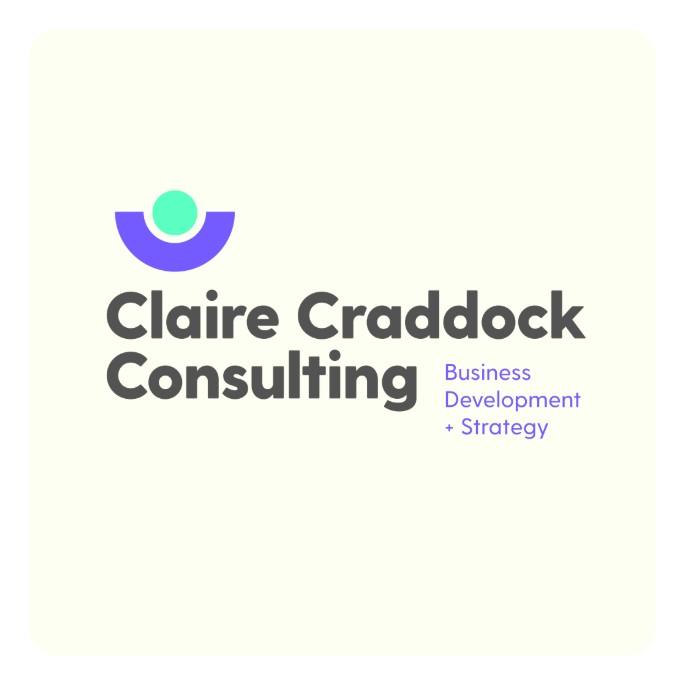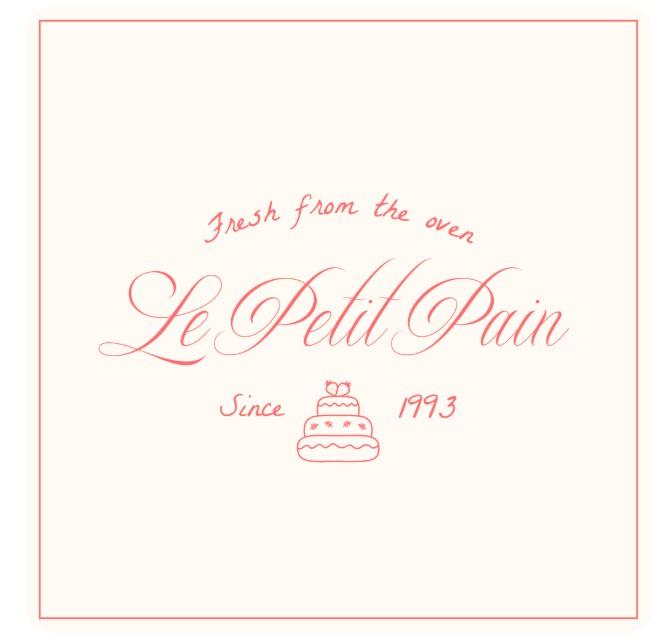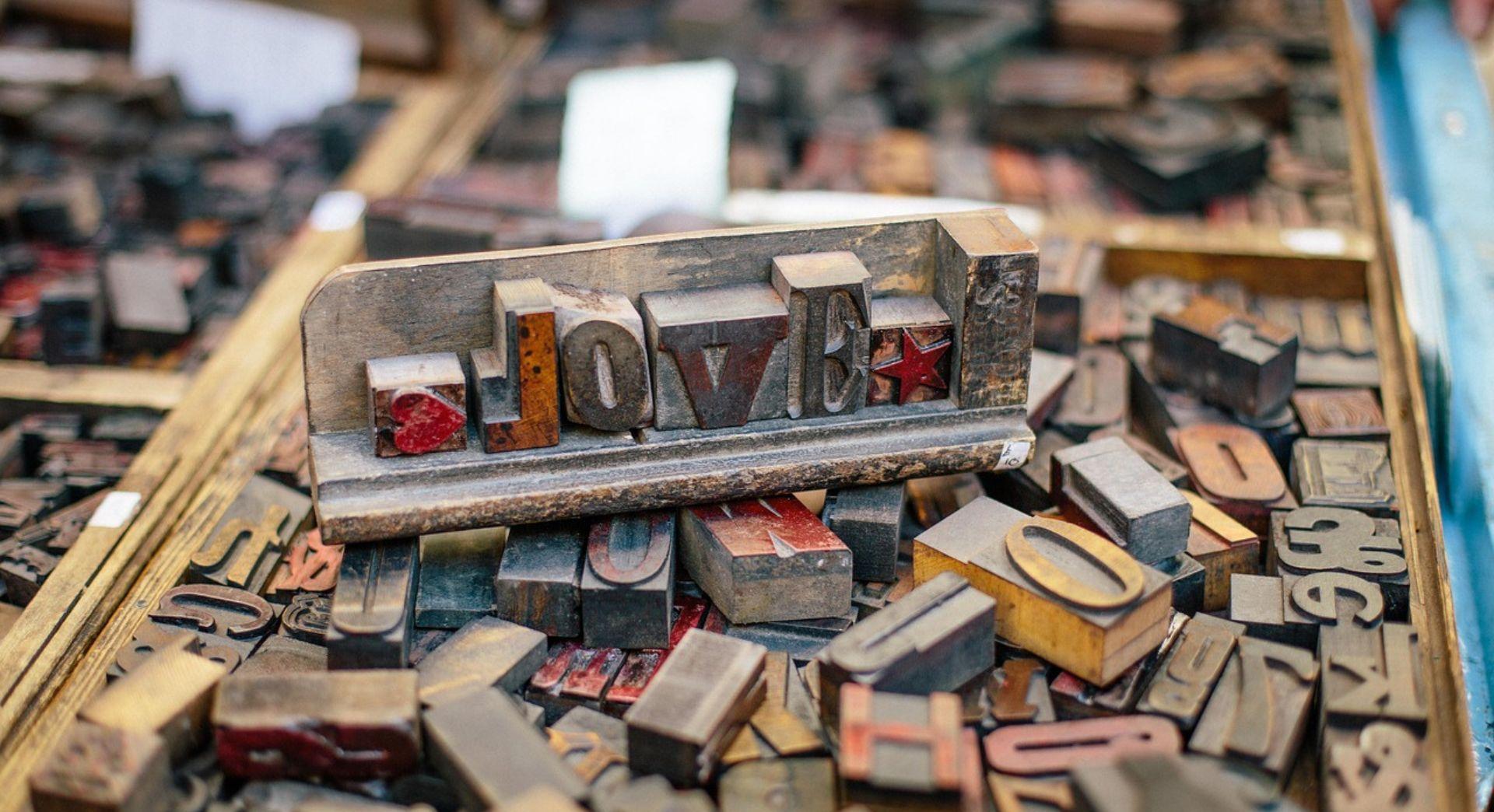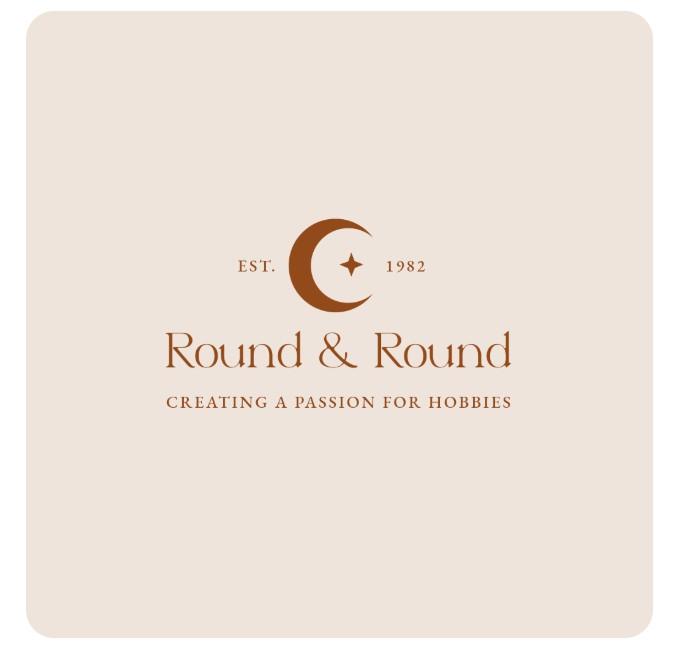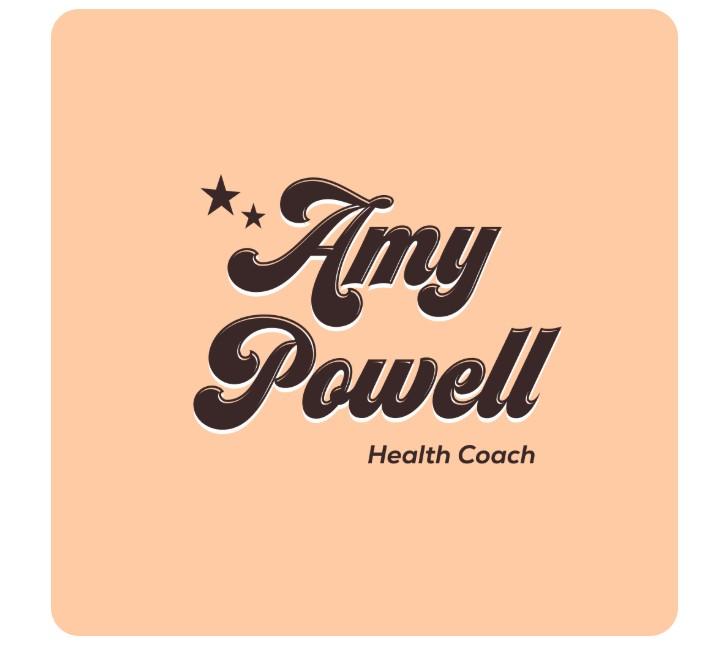
Creating a memorable logo is crucial for establishing a strong brand identity, and one of the key elements of any logo is its font.
Choosing the right font can elevate your logo, making it more recognisable and conveying the right message about your brand.
In this article, we'll explore 40 of the best fonts for logos and provide guidance on how to select the perfect one for your business.
Whether you're looking for a classic serif, a modern sans-serif, or something more artistic, you'll find plenty of options here to inspire you.
The 4 main types of logo fonts
When it comes to logo design, there are four main types of fonts to consider: serif, sans-serif, script, and display fonts.
Each of these has its unique characteristics and can evoke different emotions and associations.
Below, we'll dive into each type and provide ten popular examples of fonts within each category.
Serif logo fonts
Serif fonts are classic and elegant, featuring small lines or strokes regularly attached to the end of a larger stroke in a letter or symbol. These fonts are often associated with tradition, reliability, and authority.
Here are ten examples of serif fonts that work beautifully in logos:
Times New Roman: Times New Roman is a classic serif font renowned for its strong readability and formal appearance. Originally designed for newspaper printing, it has become a standard typeface in academic and professional settings. Its balanced proportions and clean lines make it a reliable choice for both body text and headings, ensuring clarity and precision in any document.
Georgia: Georgia is a modern serif font that is celebrated for its exceptional legibility, especially on digital screens. Designed with a larger x-height and open letterforms, it combines a timeless aesthetic with practicality. Georgia’s warm and approachable appearance makes it a popular choice for web design, long-form reading, and any context where readability is paramount.
Garamond: Garamond is an elegant and sophisticated serif font, often associated with luxury and high-end brands. Its delicate serifs and graceful curves lend a refined touch to any text, making it ideal for projects that require a sense of heritage and class. Garamond’s subtle charm and historical roots make it a favourite for print materials like books and invitations.
Baskerville: Baskerville is a refined serif font that expertly blends tradition with modernity. Known for its crisp lines, high contrast between thick and thin strokes, and a sense of elegance, Baskerville is often used in both print and digital media. Its timeless quality makes it suitable for a wide range of applications, from academic publications to stylish branding.
Palatino: Palatino is a versatile serif font that performs well across various contexts, whether in print or on screen. Its wide letterforms and generous spacing provide excellent readability, while its classical design exudes a sense of warmth and sophistication. Palatino is often used in book publishing, branding, and any project that requires a touch of elegance.
Caslon: Caslon is a traditional serif font that has been a staple in the world of publishing for centuries. With its sturdy, reliable letterforms and classic design, Caslon is often chosen for books, magazines, and other long-form text. Its timeless appeal and versatility ensure that it remains a go-to font for designers seeking a sense of authority and tradition.
Century Schoolbook: Century Schoolbook is a simple, clean serif font known for its high readability, especially in educational materials. Its rounded letterforms and generous spacing make it an excellent choice for children’s books, textbooks, and other instructional content. The font’s clarity and ease of reading make it a trusted option for conveying information clearly.
Bookman: Bookman is a bold serif font that commands attention with its strong presence and classic design. Its thick strokes and wide letterforms make it ideal for headlines, posters, and other display purposes. Despite its boldness, Bookman maintains a sense of elegance, making it a popular choice for impactful yet sophisticated designs.
Minion: Minion is a classic serif font with a warm and approachable feel, making it suitable for both print and digital projects. Its well-balanced proportions and subtle design details give it a timeless quality that works well in a variety of contexts, from book typography to branding. Minion’s versatility and legibility have made it a favourite among designers and typographers alike.
Sabon: Sabon is a serif font that exudes sophistication and elegance, perfect for projects that require a touch of class. With its refined letterforms and consistent structure, Sabon is often used in high-end print materials such as invitations, brochures, and luxury brand identities. Its understated beauty and classic design make it a timeless choice for those seeking a refined typographic solution.
Choose a logo font for your business logo
Selecting the perfect font for your logo is an essential step in creating a brand identity that resonates with your audience. Whether you're starting a new business or rebranding an existing one, the right font can make all the difference.